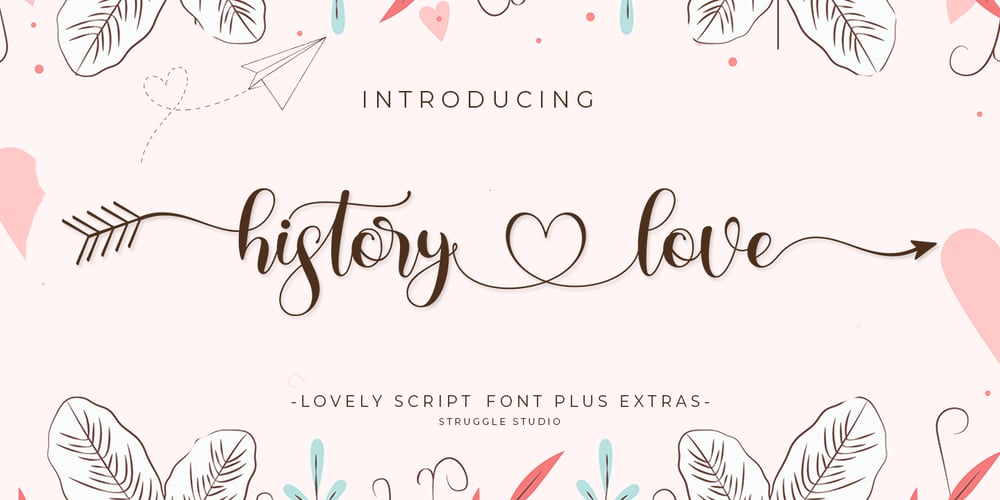
History Love
History Love font
History Love Font Family was designed by Andri Kurniawan and published by Struggle Studio. History Love contains 2 styles and family package options. History Love is a modern calligraphy design, including Regular. This font is casual and beautiful with Extras. Can be used for various purposes. such as logos, product packaging, wedding invitations, branding, headlines, signage, labels, signatures, book covers, posters, quotes, and more.History Love is a love font that emphasizes beauty and luxury, coupled with Extras which is very riveting. has 340 Glyph fonts complete with alternates & ligatures, and has 26 Extras.